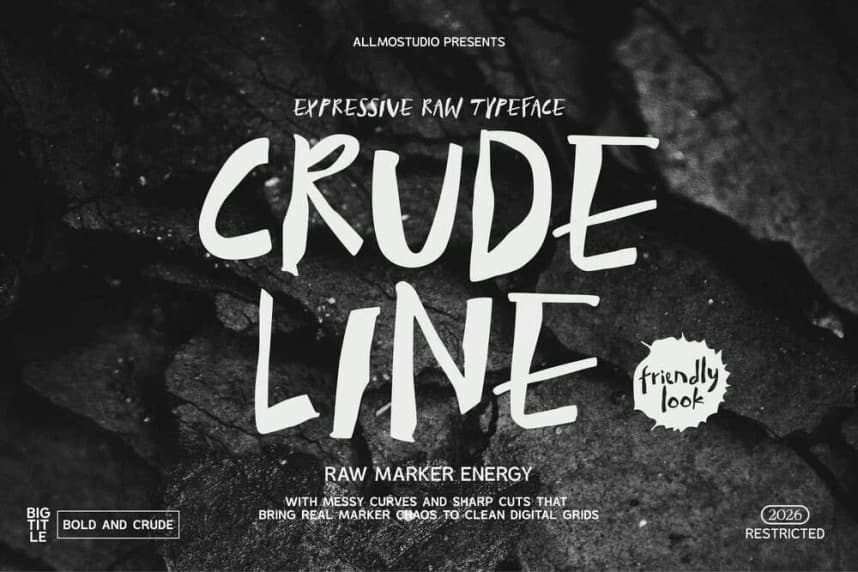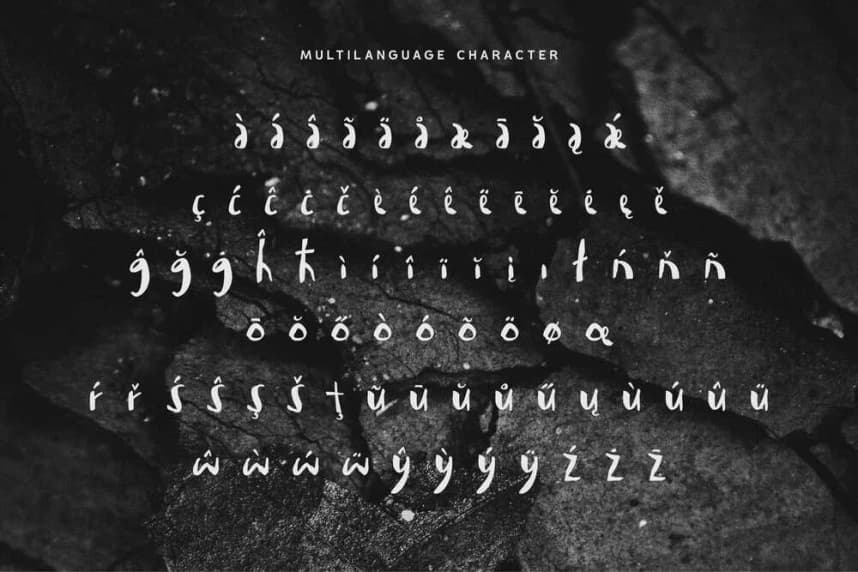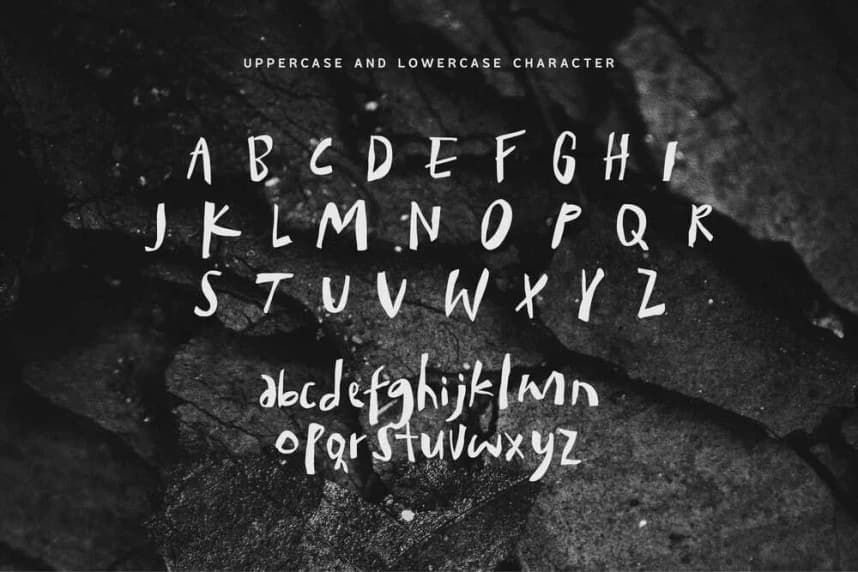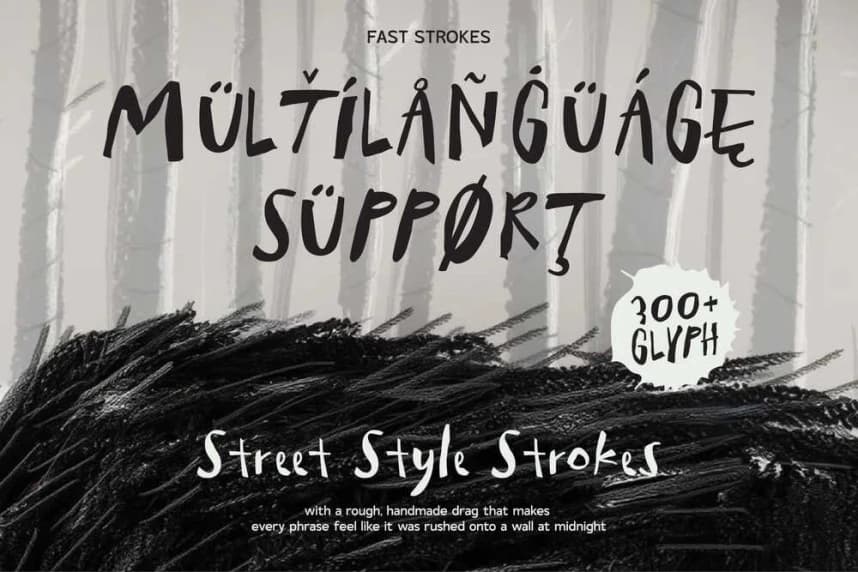
Crude Line Font
CRUDE LINE Font is an expressive raw marker font defined by its messy curves and sharp, uneven cuts, crafted to deliver a bold, energetic, and authentic hand-drawn look. It’s the perfect choice for big titles, streetwear branding, album art, posters